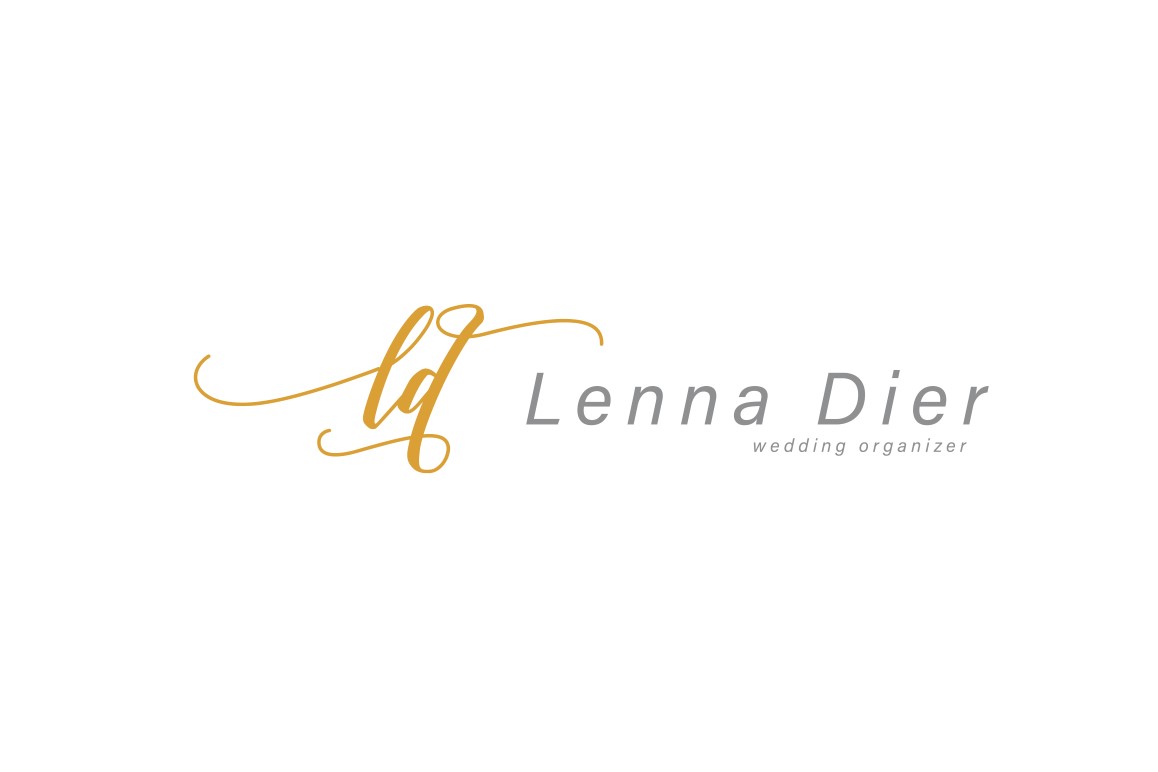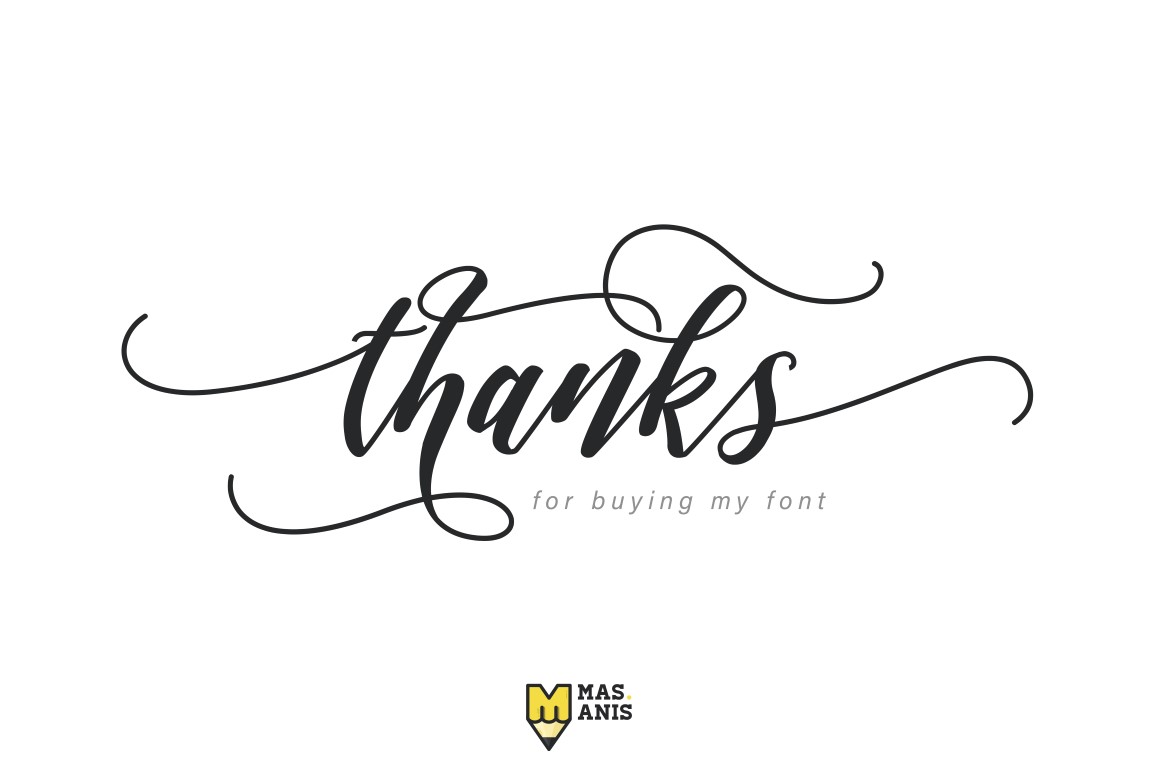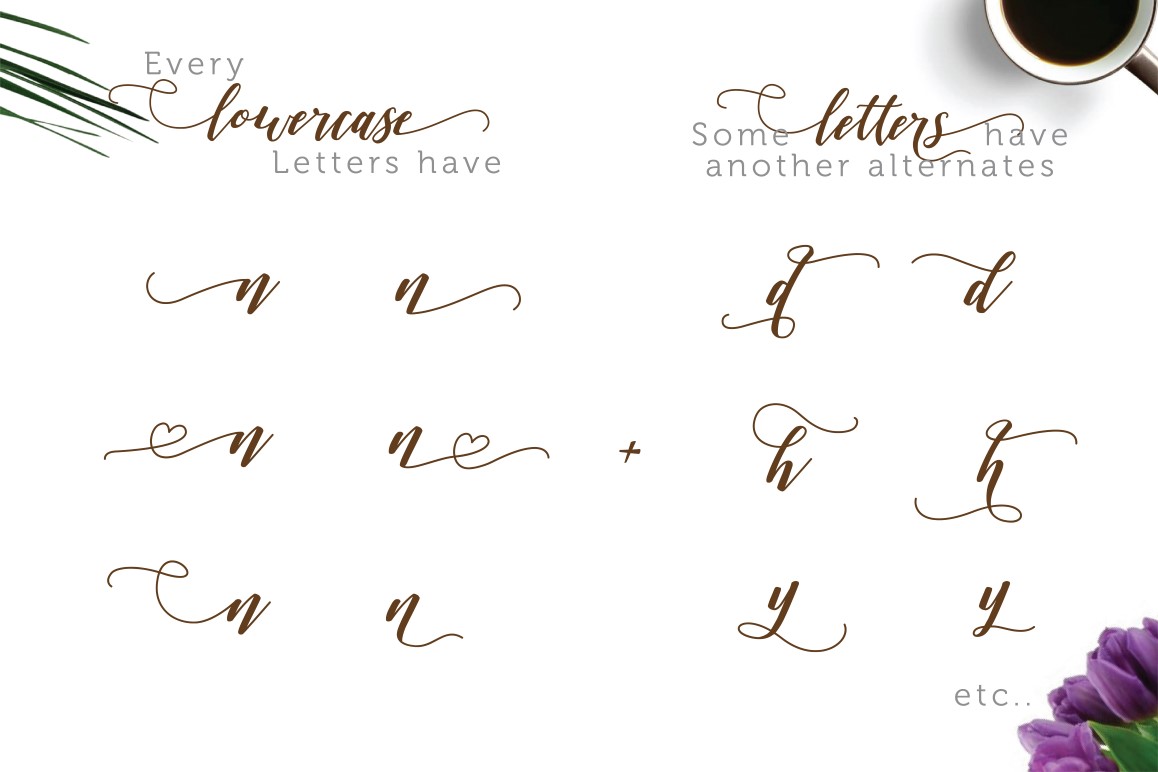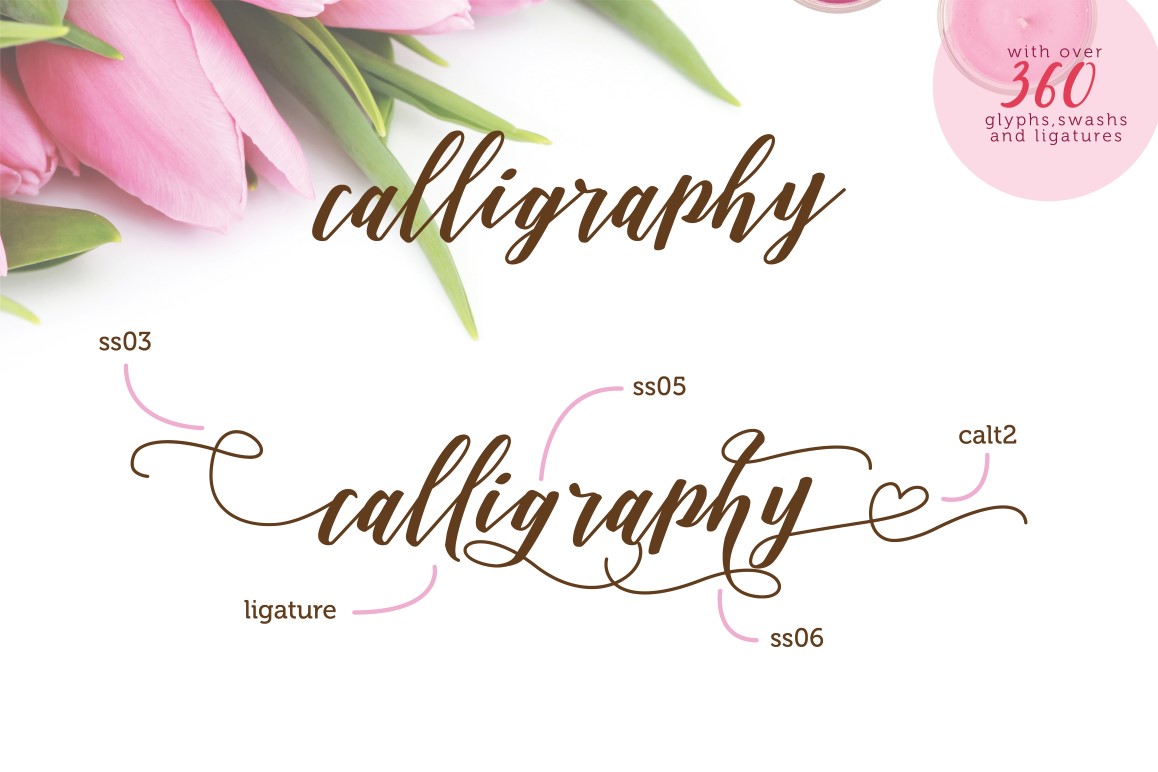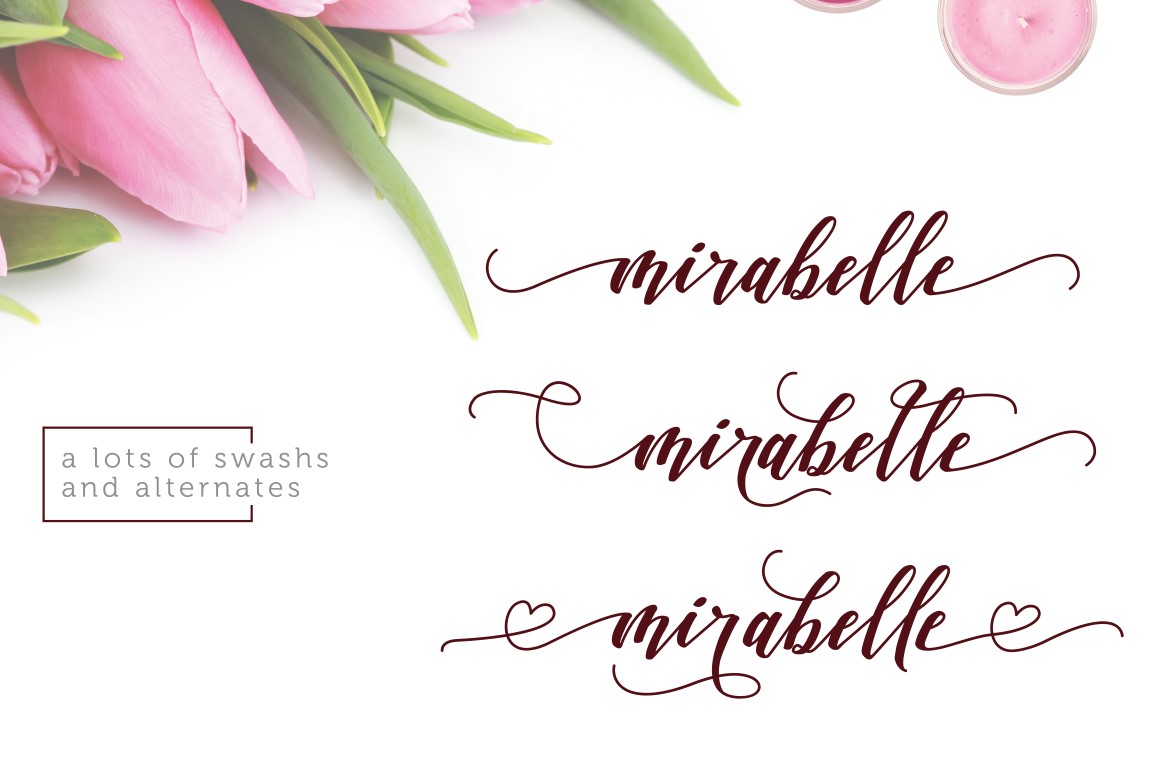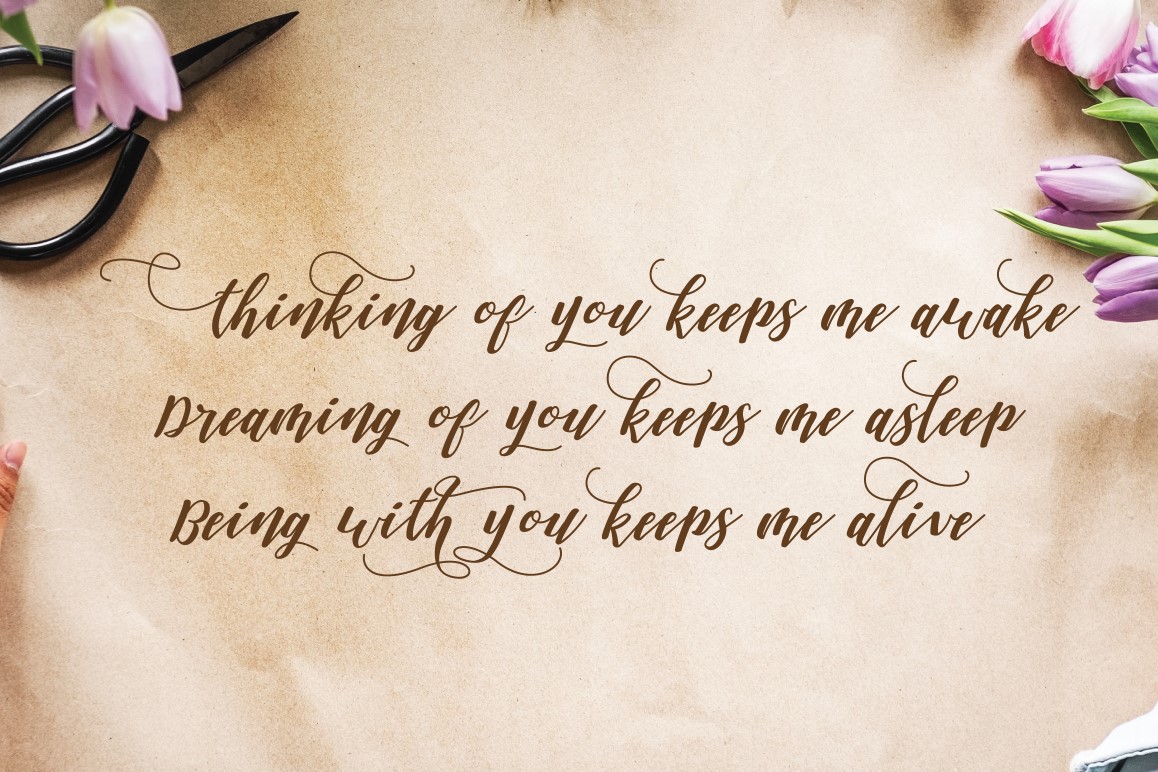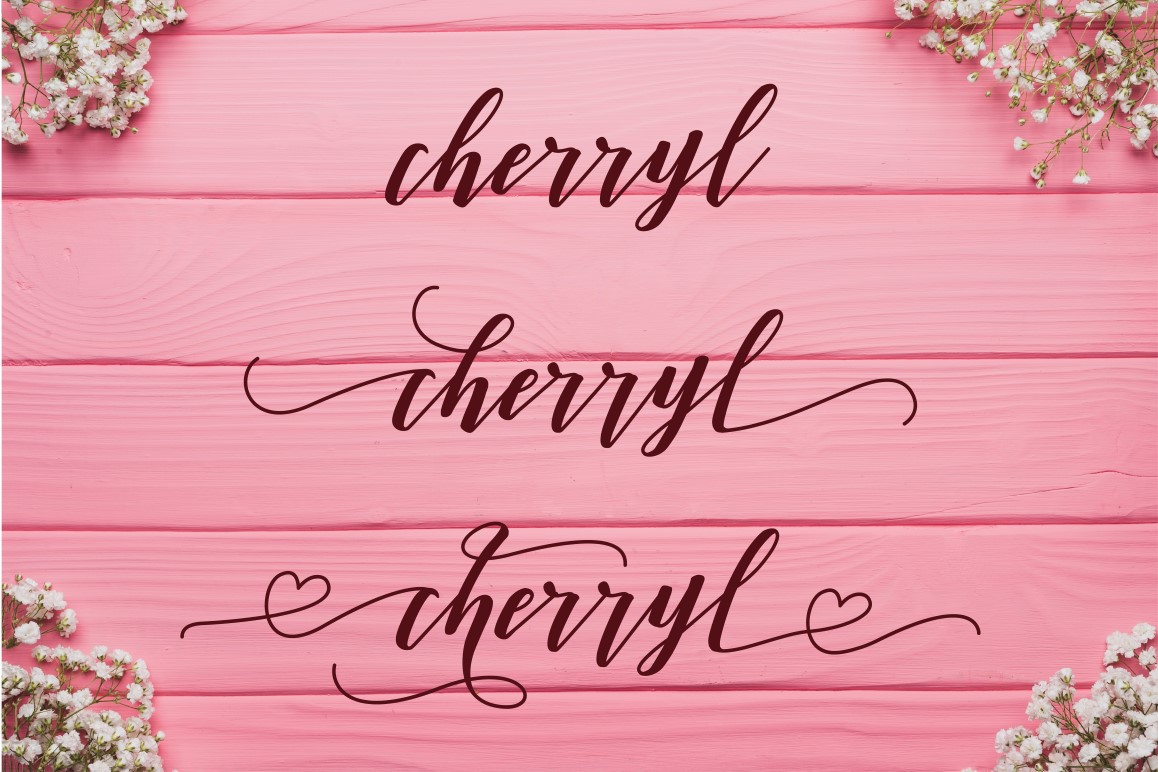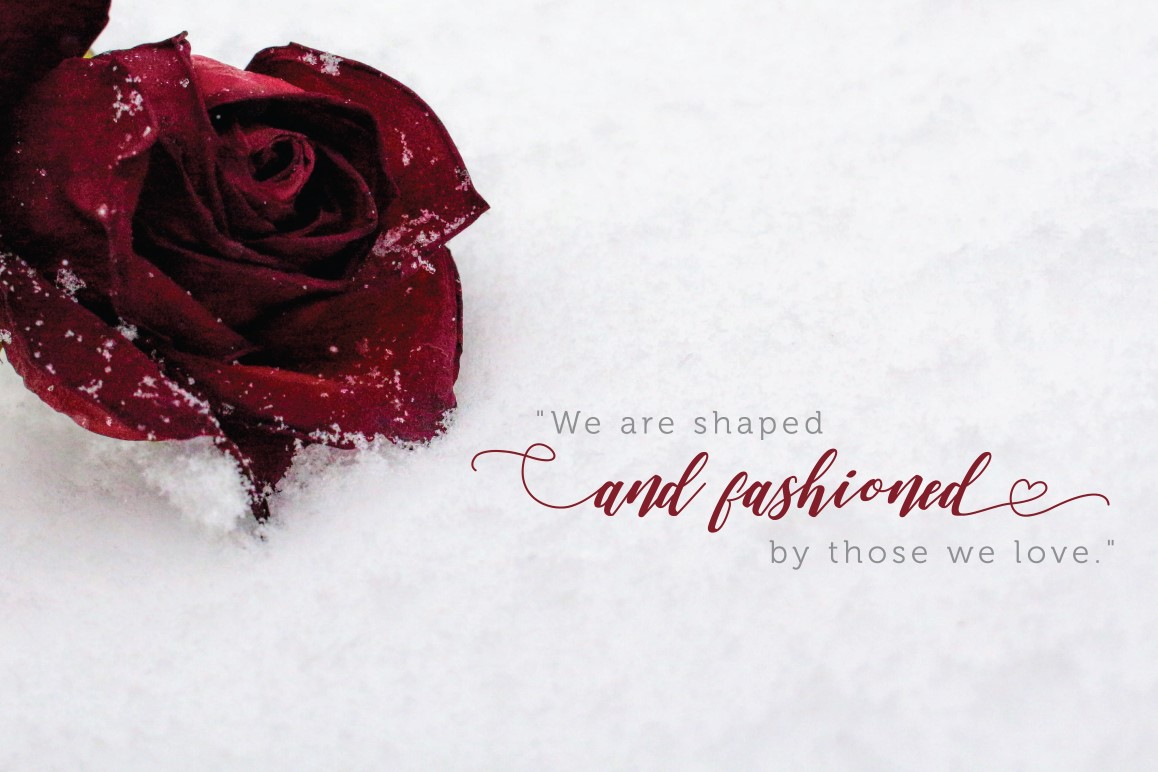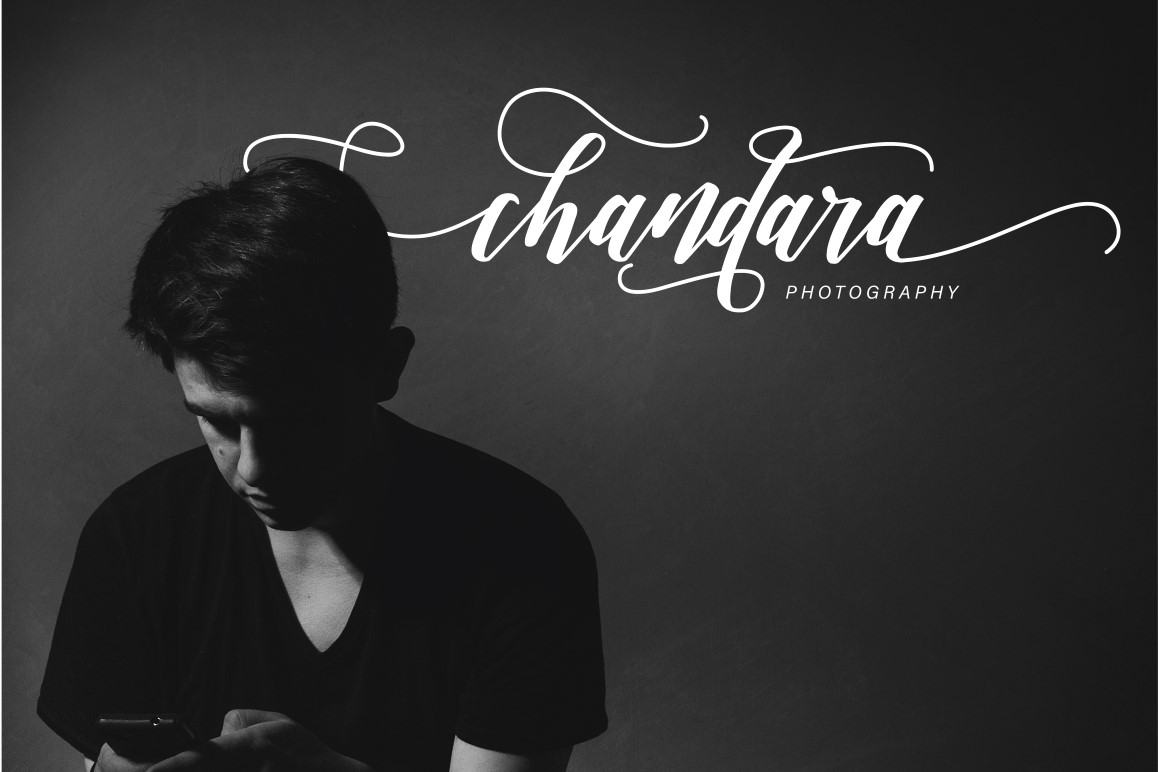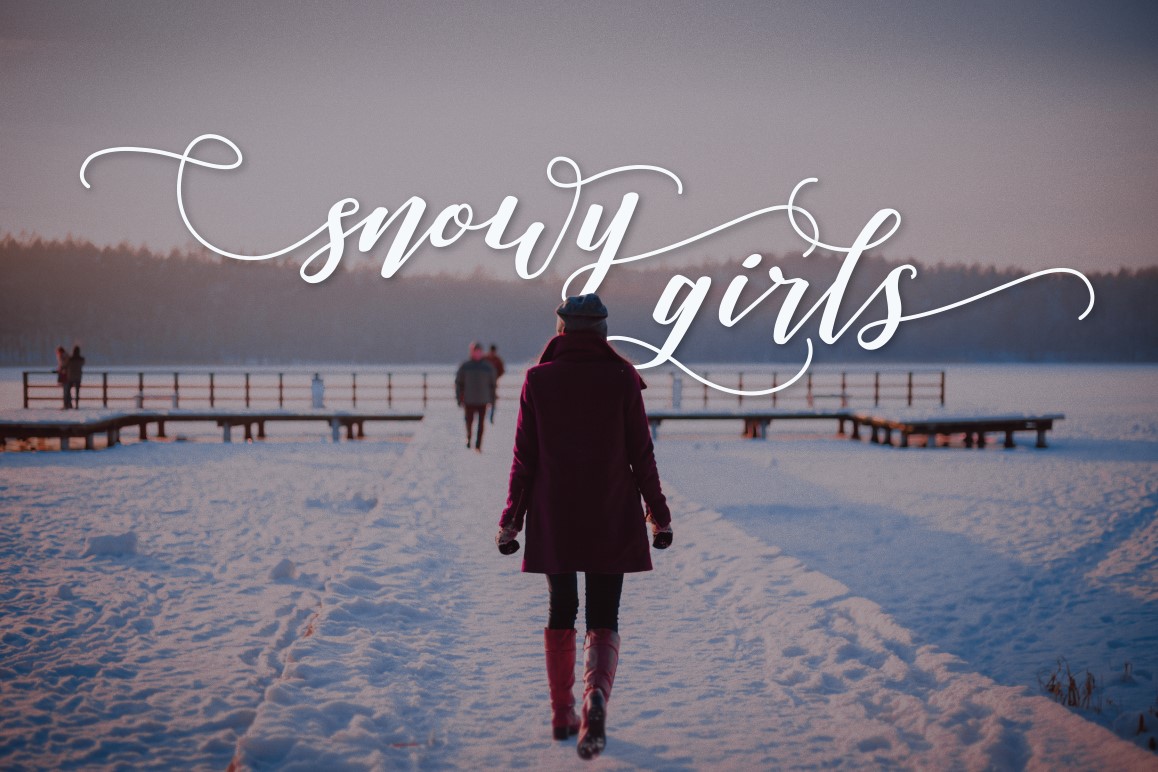
Daniesha Font
About Daniesha Font
Daniesha is a beautiful calligraphy font, perfect for special occasion typesetting, or to be used as a headline to your designs. This font has a dancing quality and offers many different character options.